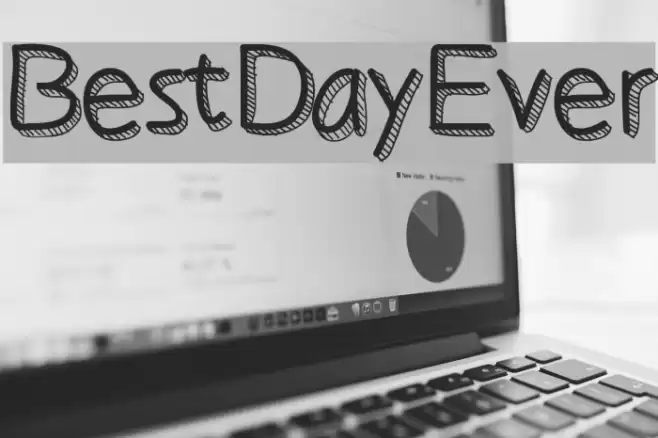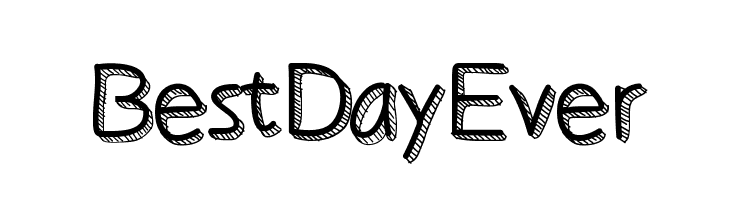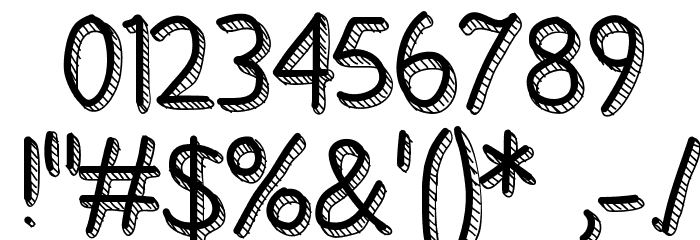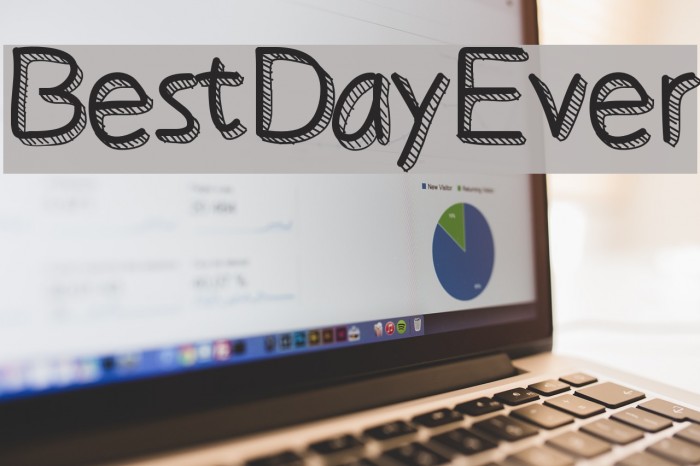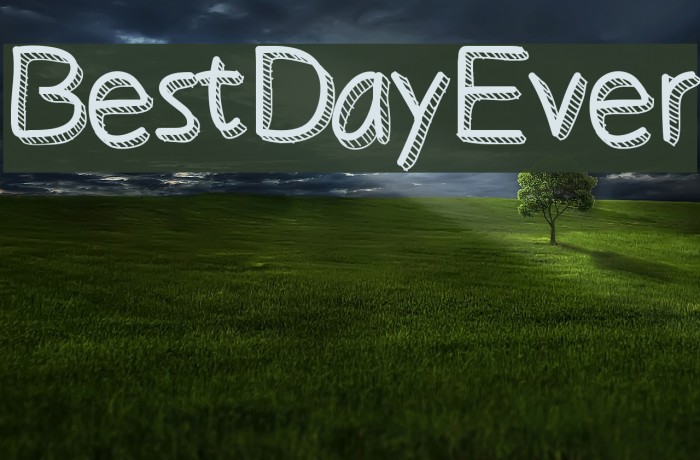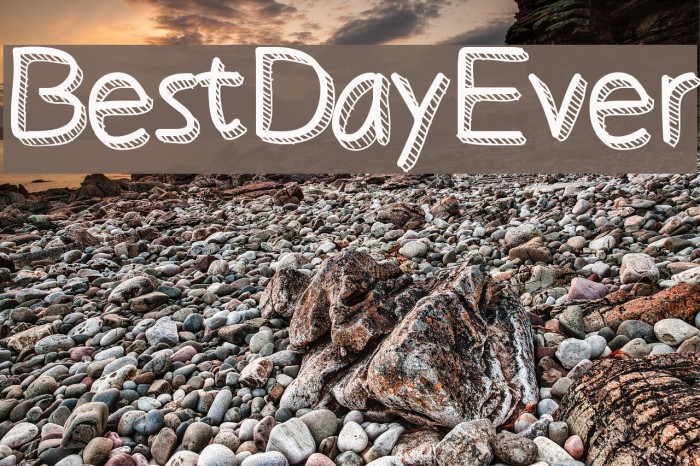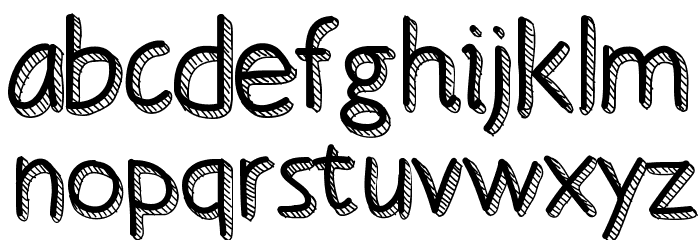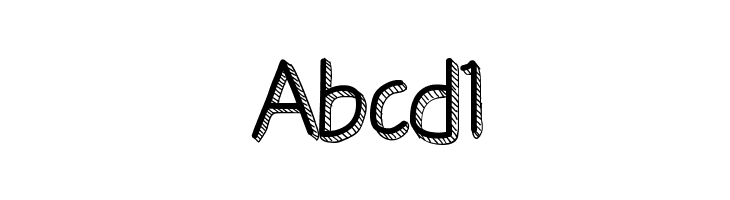
BestDayEver Font
BestDayEver Description
This font features a playful, hand-drawn style with a unique crosshatch pattern filling each character. The uppercase and lowercase letters maintain a consistent, casual appearance, while the numbers and special characters follow the same artistic theme. The strokes are bold and slightly irregular, adding to the whimsical and informal feel. This font is ideal for projects that require a fun and engaging look, such as children's books, party invitations, or creative branding materials. Its decorative nature makes it stand out, ensuring that any text set in this font will capture attention.
A playful, hand-drawn font with a crosshatch pattern and bold strokes from Uncategorized fonts.
- Proposed Projects: Children's books, party invitations, creative branding, posters.